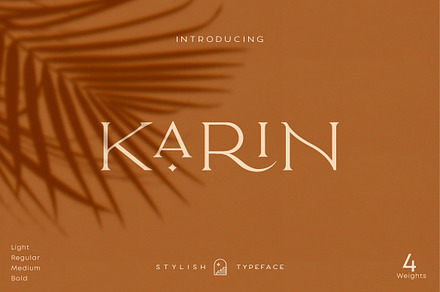
Elegant Karin – Stylish Typeface
An elegant typeface with refined proportions and delicate detailing, drawn for settings where sophistication is the primary requirement.
Elegance in type is largely a function of contrast and spacing rather than ornament, and both are handled carefully here.
• Refined contrast and spacing
Made for
• Luxury and beauty branding
• Wedding and event stationery
• Fashion editorial
• Packaging and print